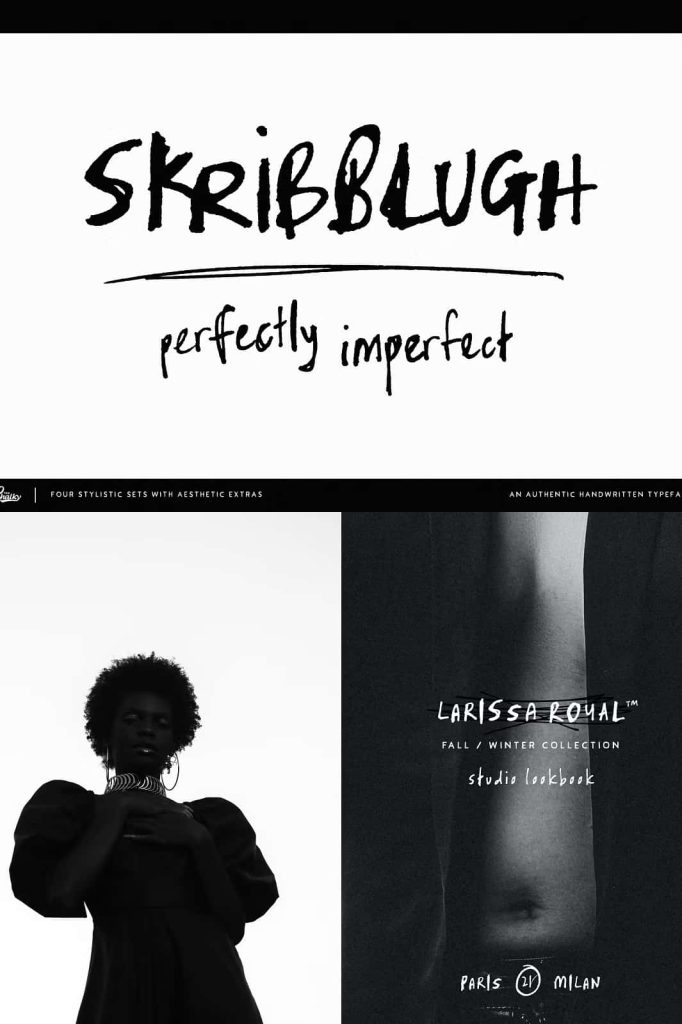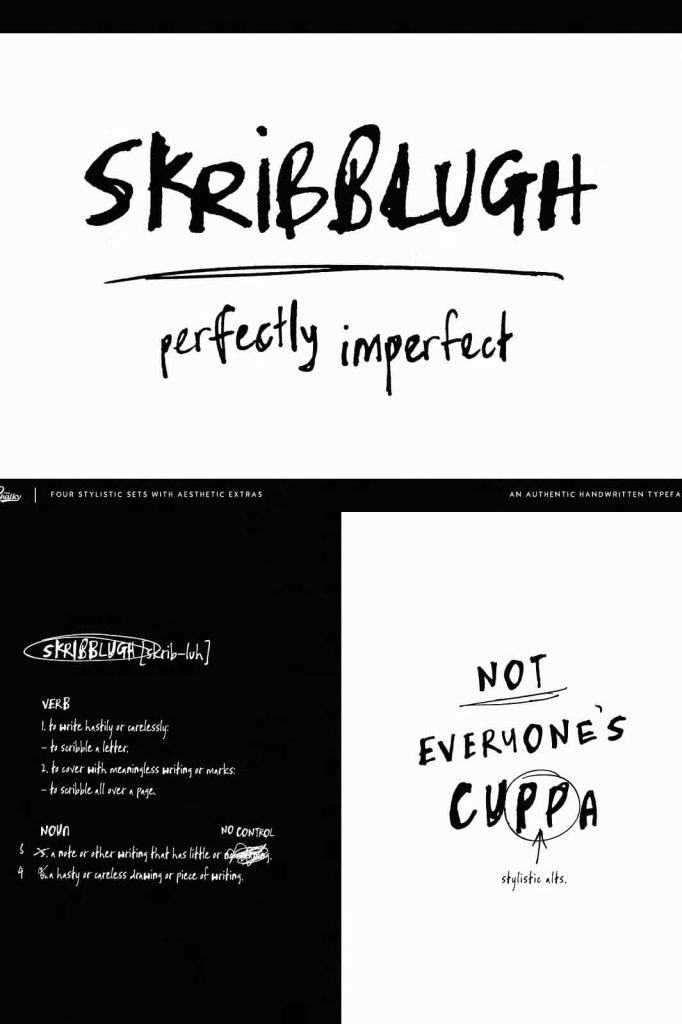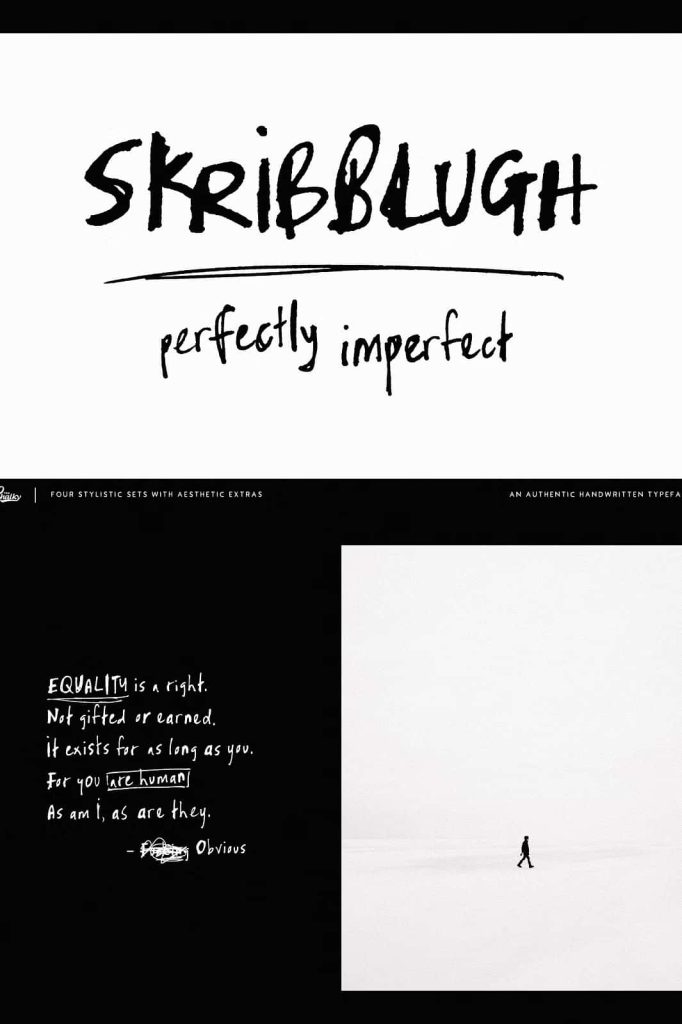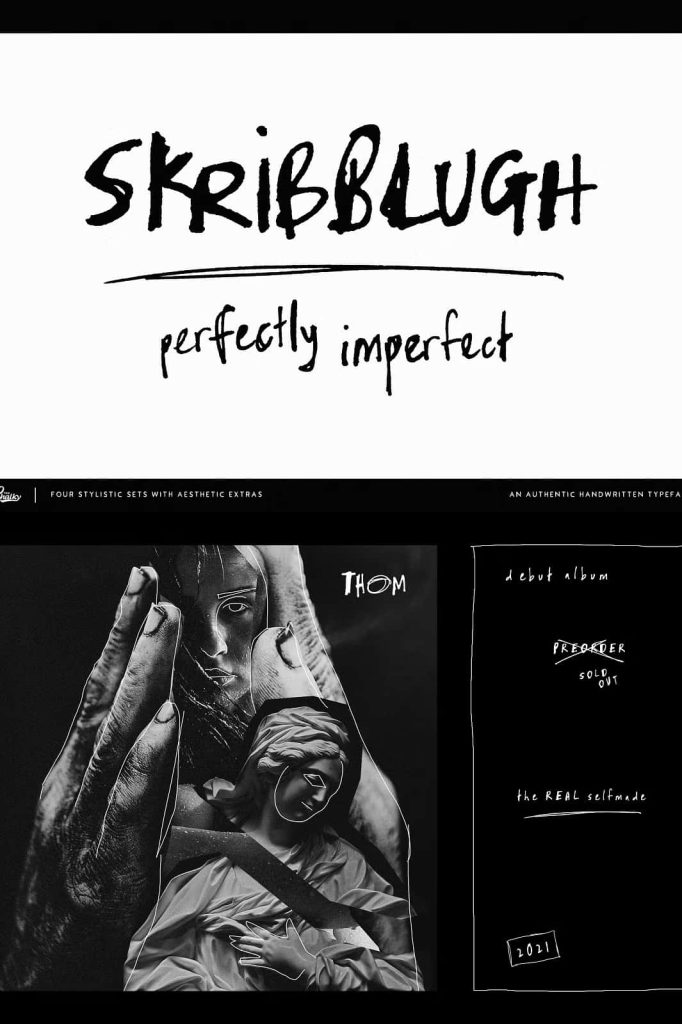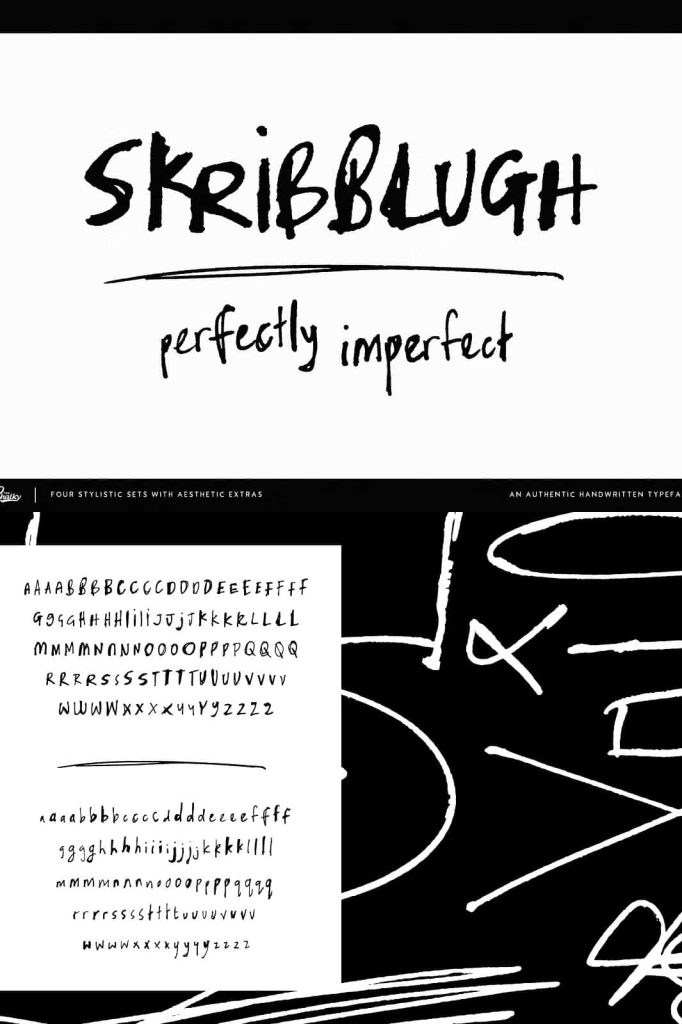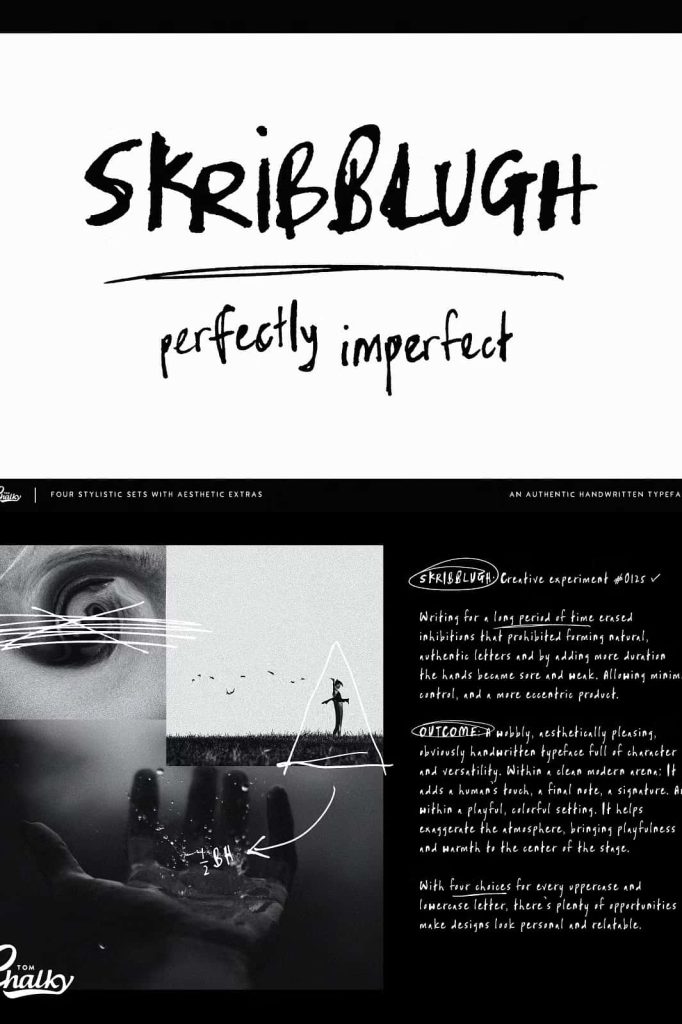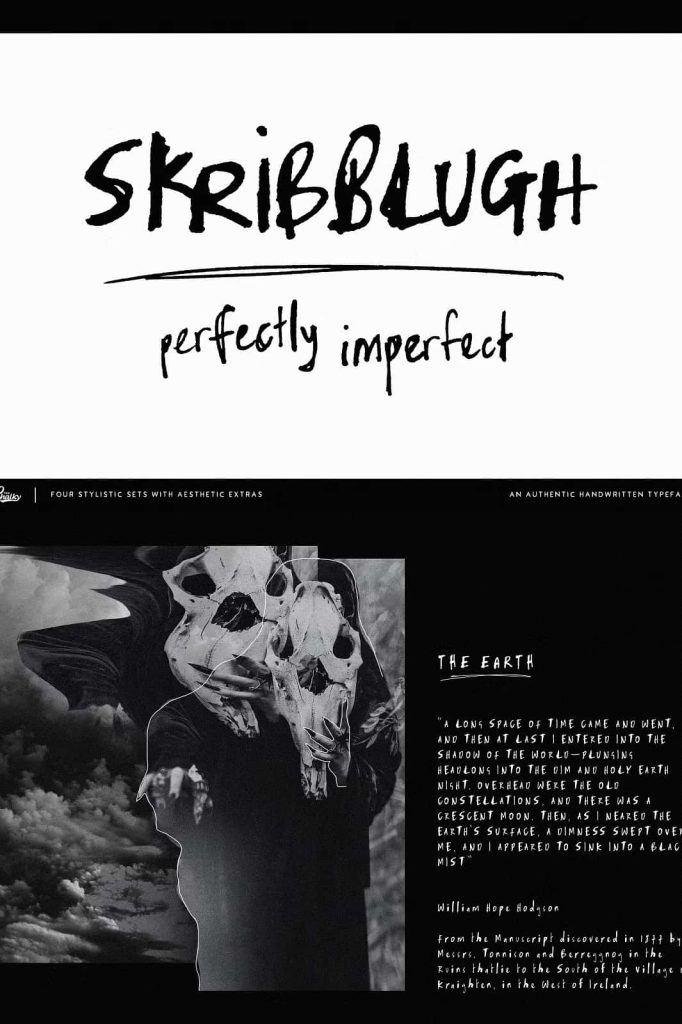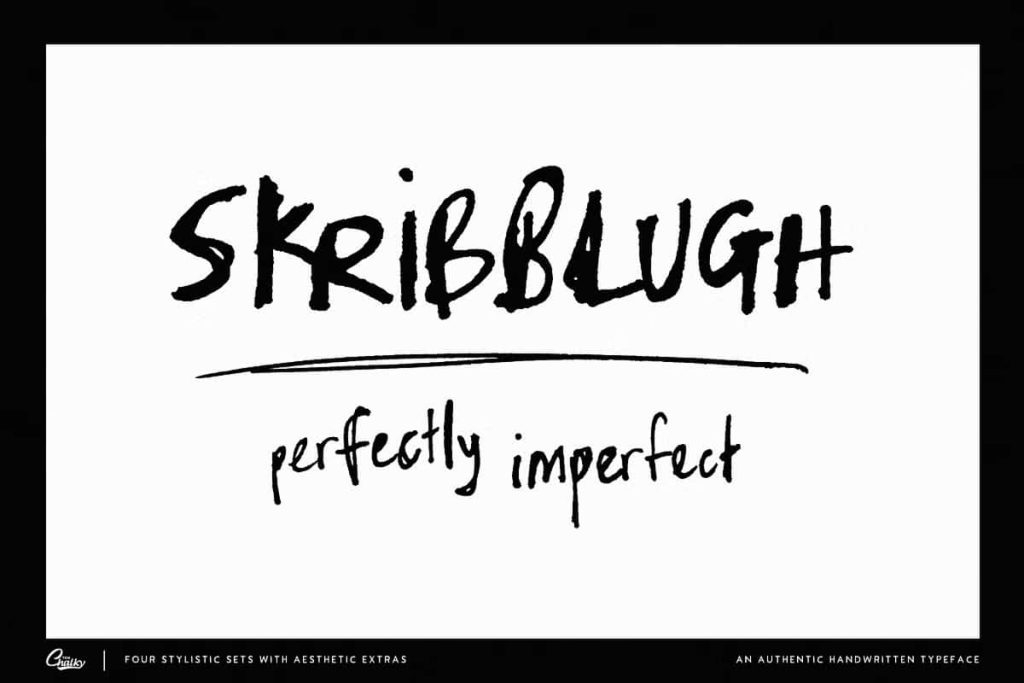
SKRIBBLUGH Font Family
SKRIBBLUGH Experimental Handwritten Font
SKRIBBLUGH is an experimental handwritten font that pushes the boundaries of traditional typography by embracing raw expression and creative freedom. This typeface emerges from a unique process where prolonged writing removes hesitation and control, allowing natural, unfiltered letterforms to take shape. The result is a font that feels alive, unpredictable, and deeply human.
Unlike conventional fonts that prioritize precision and uniformity, SKRIBBLUGH celebrates imperfection. It captures the physical and emotional energy of the writing process, transforming fatigue and spontaneity into a powerful design element. Designers who seek authenticity and originality will find this font to be an inspiring and unconventional tool.
Born from Creative Experimentation
SKRIBBLUGH originates from a deliberate creative experiment. The process involved continuous writing over an extended period, gradually removing the mental barriers that often restrict natural expression. As the hand became tired and less controlled, the letterforms began to shift, revealing a more instinctive and organic style.
This method allowed the font to evolve naturally, without the constraints of perfection or symmetry. Each character reflects the progression of this process, capturing the transition from controlled writing to raw, uninhibited expression. This foundation gives SKRIBBLUGH a distinctive identity that sets it apart from traditional handwritten fonts.
Raw and Eccentric Letterforms
The defining feature of SKRIBBLUGH lies in its eccentric and irregular letterforms. The strokes vary in thickness and direction, creating a sense of movement and unpredictability. These variations add depth and personality, making every word feel unique and expressive.
The lack of rigid control results in a font that feels spontaneous and dynamic. Designers can use this quality to create compositions that break away from conventional structure and embrace a more artistic approach. The font’s raw appearance ensures that it stands out in any design context.
Authentic and Unfiltered Expression
SKRIBBLUGH captures the essence of authentic handwriting by removing the influence of perfectionism. The letters feel as though they were created in the moment, without hesitation or correction. This authenticity makes the font particularly effective for projects that aim to convey emotion, individuality, and creativity.
Designers can use this font to communicate messages that feel personal and genuine. Its unfiltered style helps establish a strong connection with the audience, making the design more engaging and memorable.
Perfect for Artistic and Experimental Design
This font excels in artistic and experimental projects where creativity takes priority over structure. It works well in posters, album artwork, editorial layouts, and expressive branding. SKRIBBLUGH allows designers to explore unconventional compositions and push the limits of typography.
Its unique style makes it ideal for projects that aim to stand out and challenge traditional design norms. By incorporating this font, you can create visuals that feel bold, innovative, and full of character.
Embrace Imperfection in Typography
SKRIBBLUGH encourages designers to embrace imperfection as a source of creativity. Instead of striving for flawless execution, it highlights the beauty of irregularity and spontaneity. This approach opens up new possibilities for design, allowing for more expressive and engaging outcomes.
By using this font, you can create layouts that feel less mechanical and more organic. The imperfections become a defining feature, adding depth and authenticity to your work.
Versatile Across Creative Applications
Despite its experimental nature, SKRIBBLUGH adapts to a variety of design applications. It performs well in both print and digital formats, maintaining its expressive qualities across different mediums. Whether you are designing for physical products or digital platforms, the font retains its impact and character.
Designers can pair SKRIBBLUGH with simpler typefaces to create contrast and balance. Use it for headlines, titles, or decorative elements while supporting it with clean fonts for body text.
Create Bold and Memorable Designs
SKRIBBLUGH provides a unique opportunity to create typography that feels raw, emotional, and unforgettable. Its experimental origins and eccentric style make it a powerful tool for designers who want to stand out. The font transforms text into an expressive visual element that enhances storytelling and creativity.
If you want to break away from conventional design and explore new creative directions, SKRIBBLUGH offers the perfect solution. It allows you to create work that feels authentic, dynamic, and full of personality, ensuring that your designs leave a lasting impression.